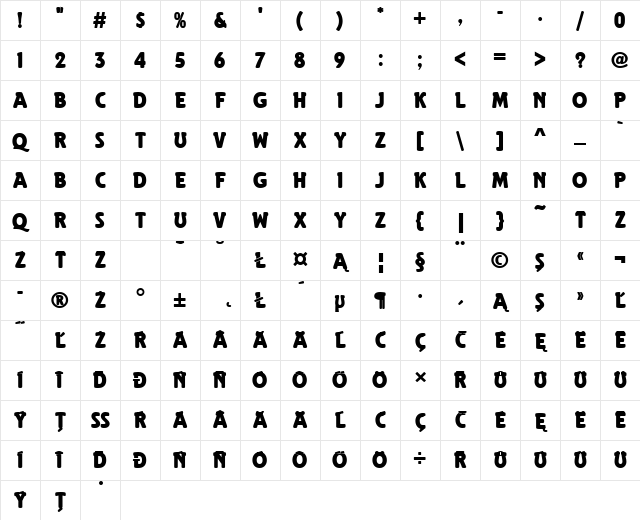
ElefontPEE Regular
Design Context for ElefontPEE
ElefontPEE is a composed and adaptable typeface that performs quietly and consistently across a wide range of design contexts.